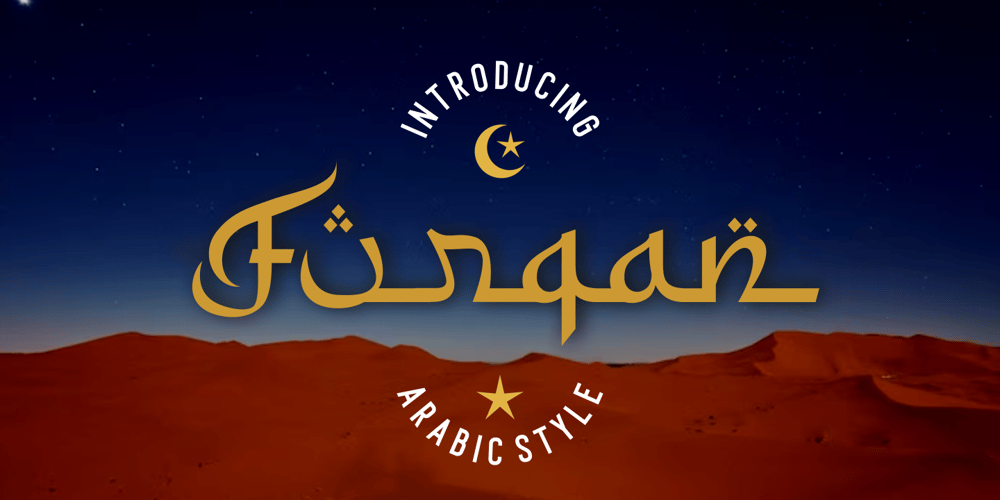
Furqan Font Family was designed by Putra Novembria Candra Kusuma and published by Putracetol. Furqan contains 1 styles and family package options. Furqan – Arabic Font beautifully encapsulates the essence of Arabic calligraphy, with its distinctive style that closely resembles traditional Arabic letters. Each character is adorned with intricate dots, paying homage to the intricate detailing found in classical Arabic writing. This font carries an air of authenticity and cultural richness, making it an excellent choice for a wide array of design purposes. From logos and branding materials to posters, product packaging.